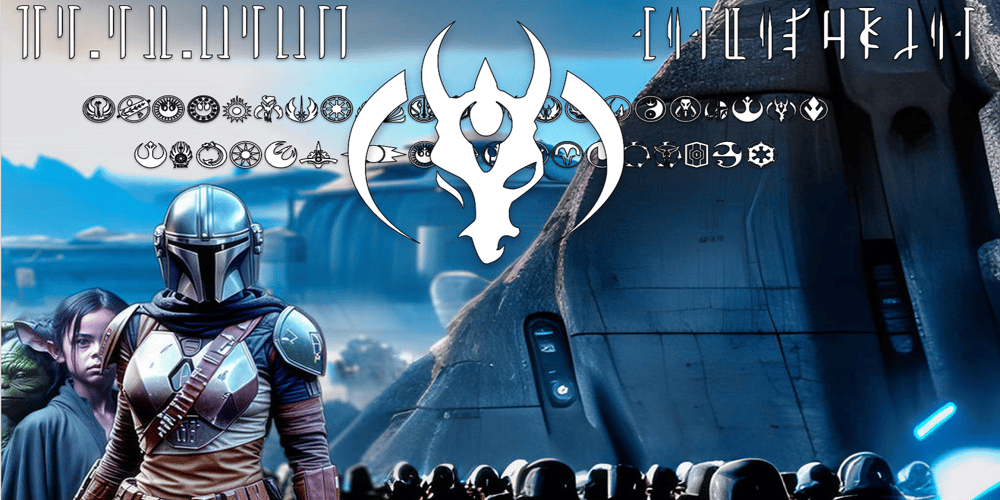
Ongunkan Mandalor 2. Version
Ongunkan Mandalor 2. Version Font Family was designed by Osman Nuri ALKAN and published by Runic World Tamgacı. Ongunkan Mandalor 2. Version contains 1 styles and family package options. It is the alphabet created for the Mandalorian race in the Star Wars universe. I came across two versions of the alphabet with a difference of 6 letters and 4 numbers. That’s why I made 2 versions as fonts.